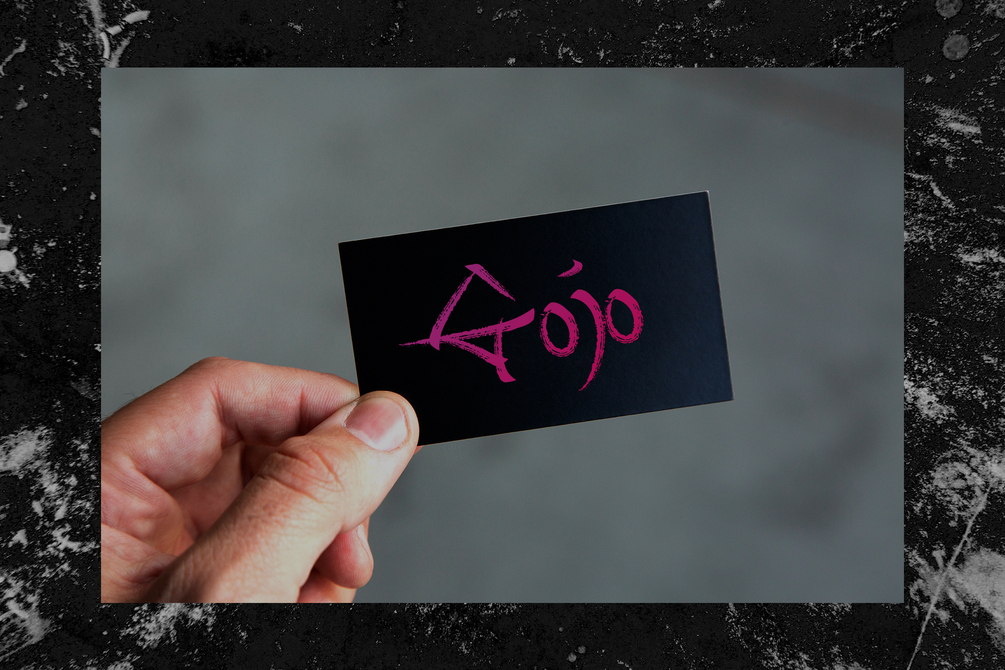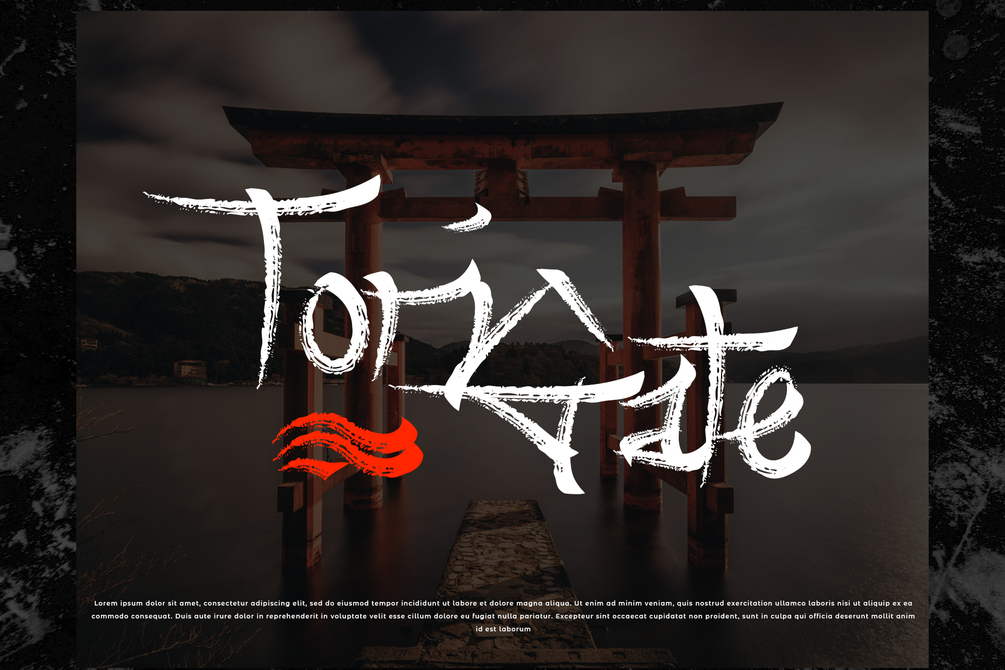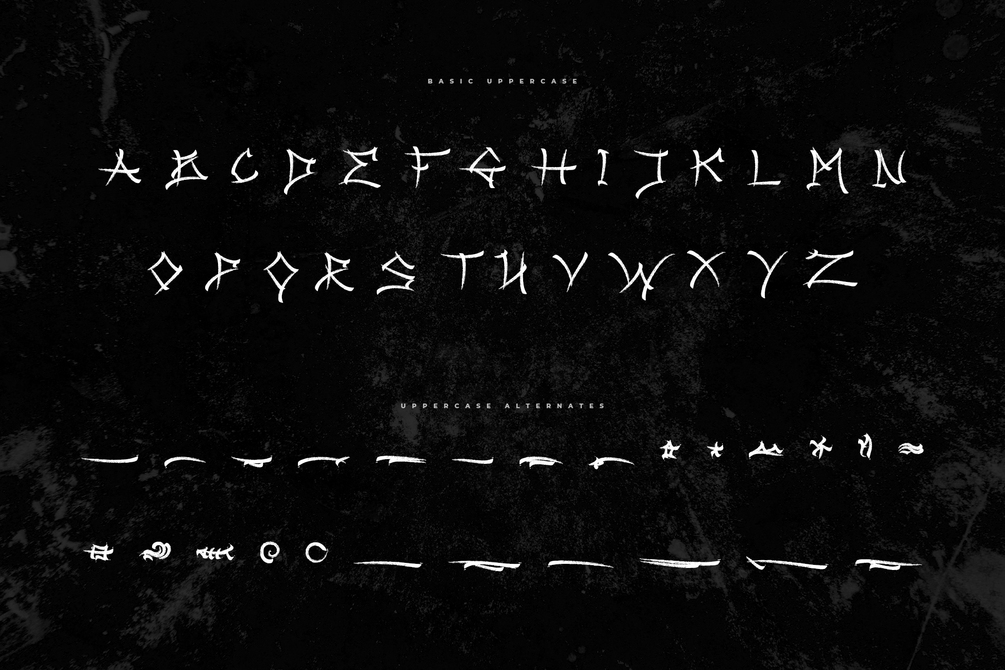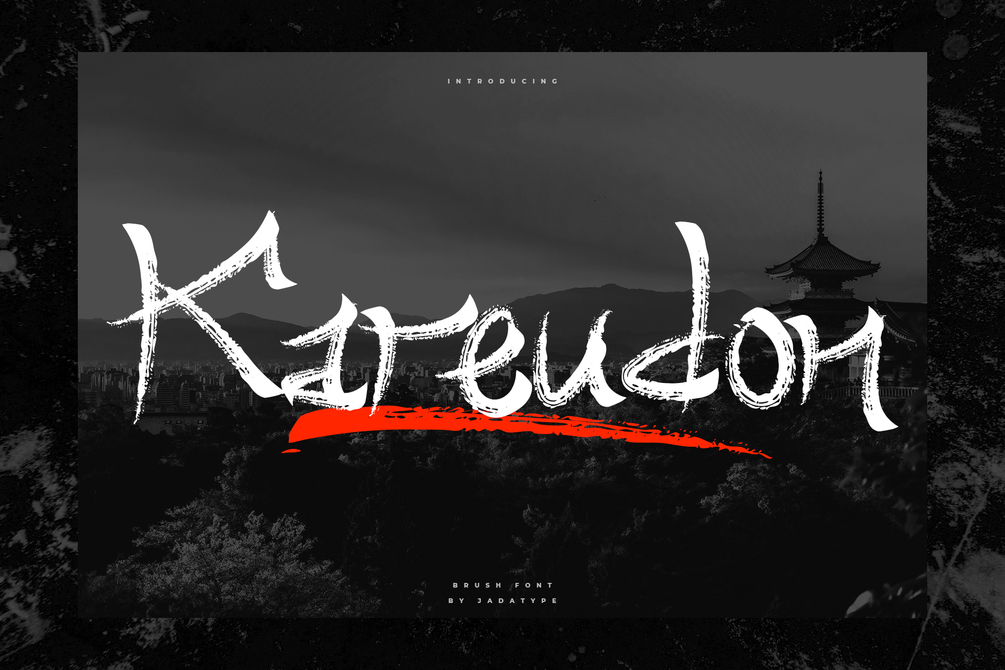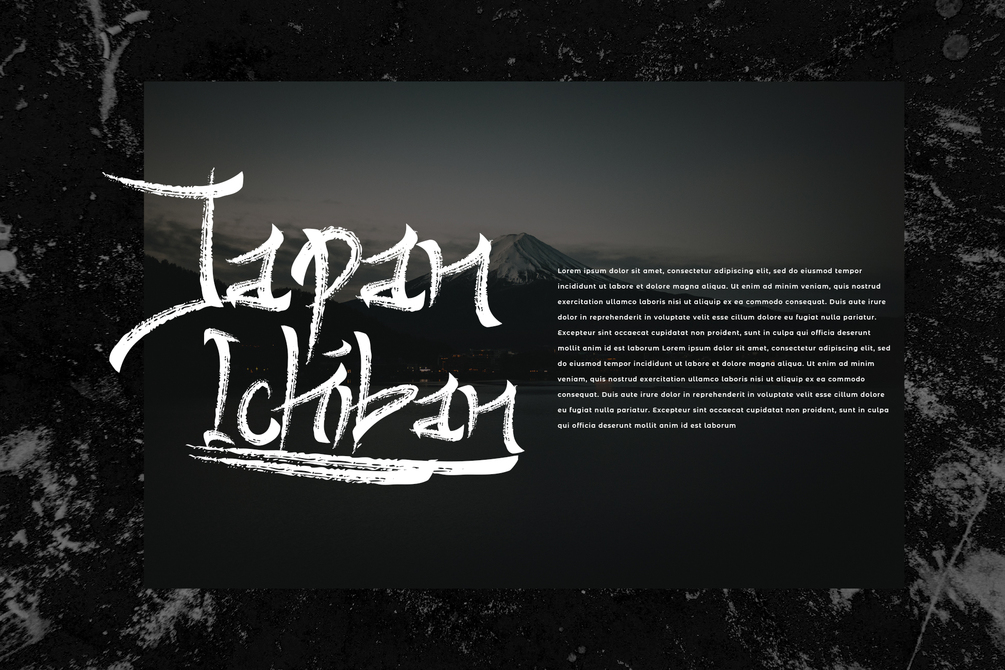
Kareudon Font
Kareudon is a font with japan brush style for your display. suitable for social media, music covers, branding, products, handwritten, and so on. contains standard English letters, numbers, punctuation, and several accents that support multilingualism.